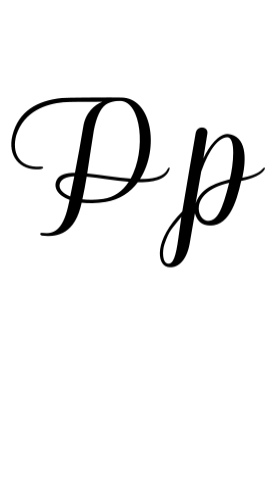
Pilletta Font: Elevate Your Designs with Elegance and Sophistication
Pilletta font is a stunning script font that exudes elegance and sophistication. Its stylish and refined appearance makes it perfect for a wide range of design applications, from wedding invitations and thank you cards to quotes, greeting cards, logos, and business cards. If you’re looking to add a touch of handwritten charm to your designs, Pilletta font is an excellent choice.
The Characteristics of Pilletta Font
Pilletta font boasts a unique blend of classic and modern elements, making it a versatile and eye-catching addition to any design. Some of its key characteristics include:
- Elegant script style: Pilletta font features a beautiful, flowing script style that is perfect for creating sophisticated and refined designs.
- Intricate details: The font includes intricate details and flourishes that add a touch of luxury and elegance to any design.
- High legibility: Despite its ornate appearance, Pilletta font is highly legible, making it suitable for use in a variety of design applications.
- Versatile: Pilletta font can be used in a range of design contexts, from formal events like weddings and galas to everyday designs like business cards and social media graphics.
Uses for Pilletta Font
Pilletta font is a versatile design element that can be used in a wide range of applications. Here are some ideas to get you started:
Wedding Invitations and Stationery
Pilletta font is a popular choice for wedding invitations, thank you cards, and other stationery. Its elegant and refined appearance makes it perfect for formal wedding designs.
Quotes and Typography
Pilletta font is also well-suited to quotes and typography designs. Its flowing script style and intricate details make it perfect for creating visually striking quotes and typographic designs.
Logos and Branding
Pilletta font can also be used to create elegant and sophisticated logos and branding materials. Its unique blend of classic and modern elements makes it perfect for businesses that want to stand out from the crowd.
Greeting Cards and Social Media Graphics
Pilletta font is also suitable for use in greeting cards and social media graphics. Its elegant and refined appearance makes it perfect for creating designs that are both visually striking and professional.
Tips for Using Pilletta Font
To get the most out of Pilletta font, here are a few tips to keep in mind:
- Use it sparingly: Pilletta font is a statement font, so use it sparingly to add emphasis and elegance to your designs.
- Pair it with contrasting fonts: Pair Pilletta font with contrasting fonts to create visual interest and hierarchy in your designs.
- Experiment with colors and textures: Experiment with different colors and textures to add depth and visual interest to your designs.
- Pay attention to legibility: Make sure to pay attention to legibility when using Pilletta font, especially in smaller sizes.
Pilletta font is a stunning script font that can elevate your designs with elegance and sophistication. Its unique blend of classic and modern elements makes it perfect for a wide range of design applications, from wedding invitations and stationery to logos and branding materials. By following the tips outlined above, you can get the most out of Pilletta font and create designs that are both visually striking and professional.
What is Pilletta font?
Pilletta font is a stylish and incredibly elegant script font that is perfect for adding a touch of handwritten charm to your designs.
What is Pilletta font used for?
Pilletta font can be used in a wide range of design applications, including wedding invitations, thank you cards, quotes, greeting cards, logos, business cards, and more.
Is Pilletta font legible?
Yes, Pilletta font is highly legible, making it suitable for use in a variety of design applications.